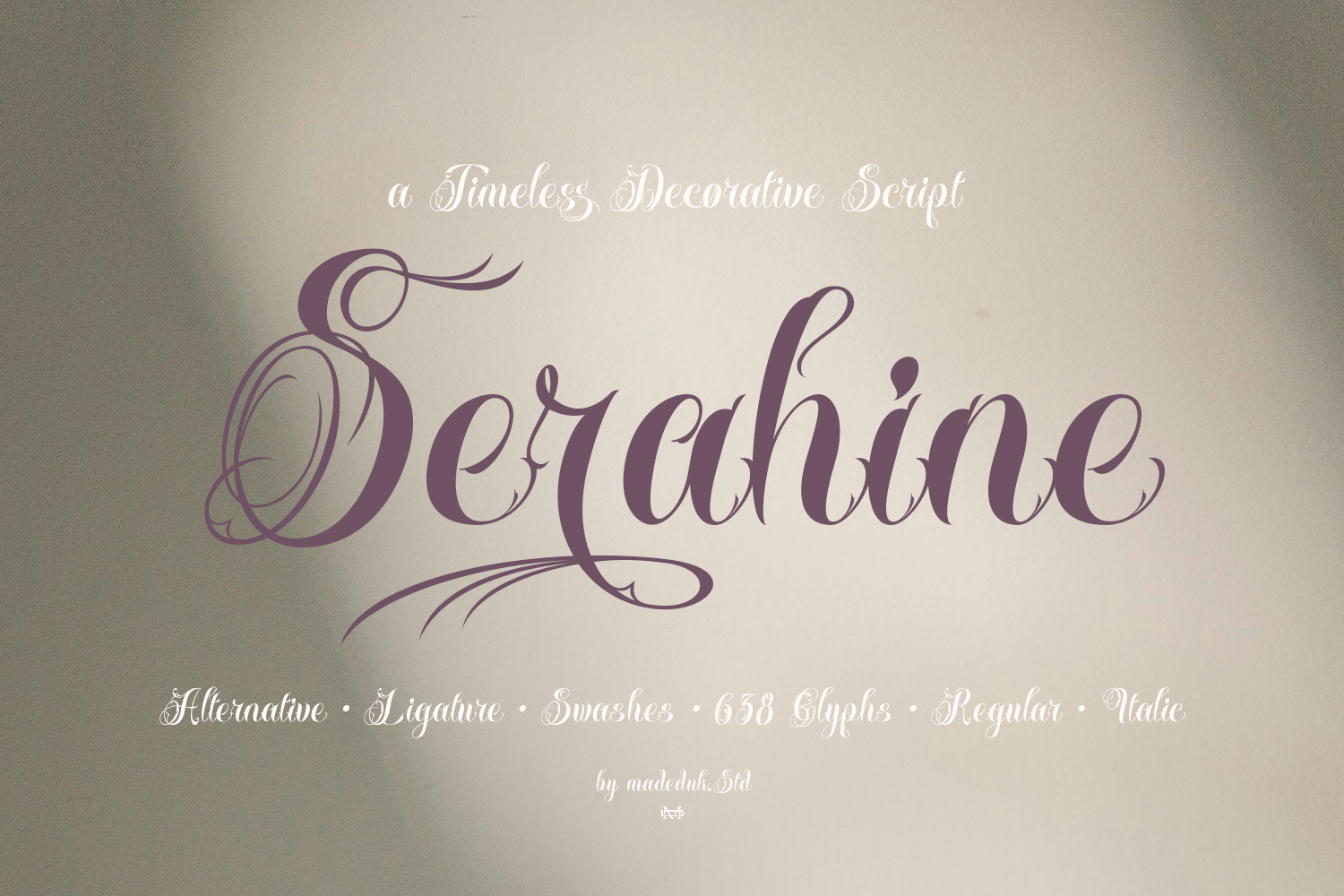
Serahine Script
Serahine is a luxury decorative script featuring refined ornamental curves and artistic details in every letter. Its graceful and rhythmic forms convey a classic, elegant, and high-end impression, inspired by European aristocratic typography. Each stroke is carefully crafted to emphasize exclusivity and visual beauty. This font is perfect for poster titles, premium logos, formal invitations, exclusive branding, and decorative designs that require a touch of luxury. With its strong yet harmonious character, this font can become the main focus of a design and elegantly reinforce its visual identity.
Feature
•  Uppercase & Lowercase
•  Number & Symbol
•  International Glyphs
•  Multilingual support
•  Alternative
•  Ligatures